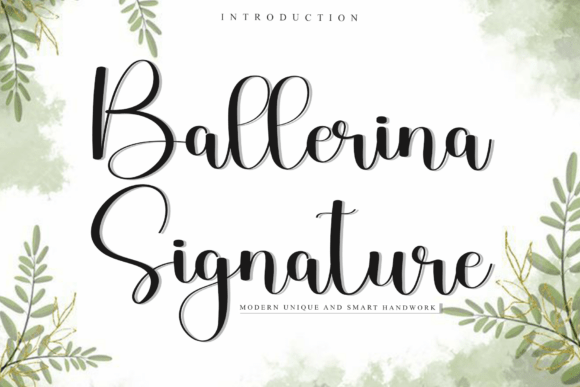
The Perfect Touch of Elegance: Unveiling the Ballerina Signature Font
Have you ever sat at your desk, pen in hand, trying to create the perfect invitation or signature for a special occasion? The words “beautiful” and “elegant” come to mind, but somehow, your handwriting just doesn’t quite capture the essence of sophistication you’re going for.
Enter the Ballerina Signature Font, a refined and elegant modern calligraphy font that exudes a sense of poise and refinement. Designed to evoke the charm of a handwritten signature, this font is perfect for wedding stationery, luxury branding, and signature-style designs. Its delicate strokes, looping curves, and flowing rhythm make it a valuable addition to any designer’s toolkit.
Ballerina Signature Font Key Features
- Unique Characteristics: Elegant, flowing script design with a touch of whimsy, perfect for adding a personal touch to signatures, logos, and other creative projects
Ballerina Signature Font Review
As a designer, I was excited to dive into the Ballerina Signature Font, but my experience was a mixed bag.
- ✨ Elegant and refined aesthetic: The Ballerina Signature Font has a sophisticated and feminine touch that would be perfect for wedding invitations, fashion branding, or other high-end projects.
- ✨ Beautiful script connections: The connected script style of the font is a standout feature, making it ideal for handwritten or signature-style designs.
- ✨ Wide language support: The font comes with extensive language support, making it suitable for international clients and projects.
- ⚠️ Limited font sizes: The font may not perform well at very large or very small font sizes, which could be a concern for certain projects.
- ⚠️ Not suitable for bold or display use: The Ballerina Signature Font is best used for body text or small headings, as its delicate nature may not hold up to bold or display uses.
Overall, the Ballerina Signature Font is a beautiful addition to any designer’s toolkit, but it’s essential to understand its limitations and use it in projects where its unique strengths shine.
Ballerina Signature Font: A Practical Application Guide
Use the Ballerina Signature Font for creating elegant and sophisticated designs.
Pair it with pastel colors and floral patterns for a romantic look.
Experiment with different font sizes and styles to add visual interest.
Floral and garden-themed designs
Women’s fashion and beauty branding
Alternatives to Ballerina Signature Font
Lobster is a cursive script font that is ideal for creating elegant and sophisticated designs. It is perfect for use in wedding invitations, signature blocks, and other formal documents. Lobster has a similar feel to Ballerina Signature Font, but it is more dramatic and luxurious.
Comparison: Lobster has a more dramatic and luxurious feel compared to Ballerina Signature Font. It is better suited for formal designs and has a more elegant look.
Great Vibes is a modern script font that is perfect for creating a relaxed and casual feel. It is ideal for use in logos, signature blocks, and other designs where a friendly and approachable tone is desired. Great Vibes is more casual and relaxed compared to Ballerina Signature Font.
Comparison: Great Vibes has a more casual and relaxed feel compared to Ballerina Signature Font. It is better suited for designs that require a friendly and approachable tone.
Carolyna Pro is a elegant script font that is perfect for creating sophisticated and stylish designs. It is ideal for use in wedding invitations, signature blocks, and other formal documents. Carolyna Pro has a similar feel to Ballerina Signature Font, but it is more refined and sophisticated.